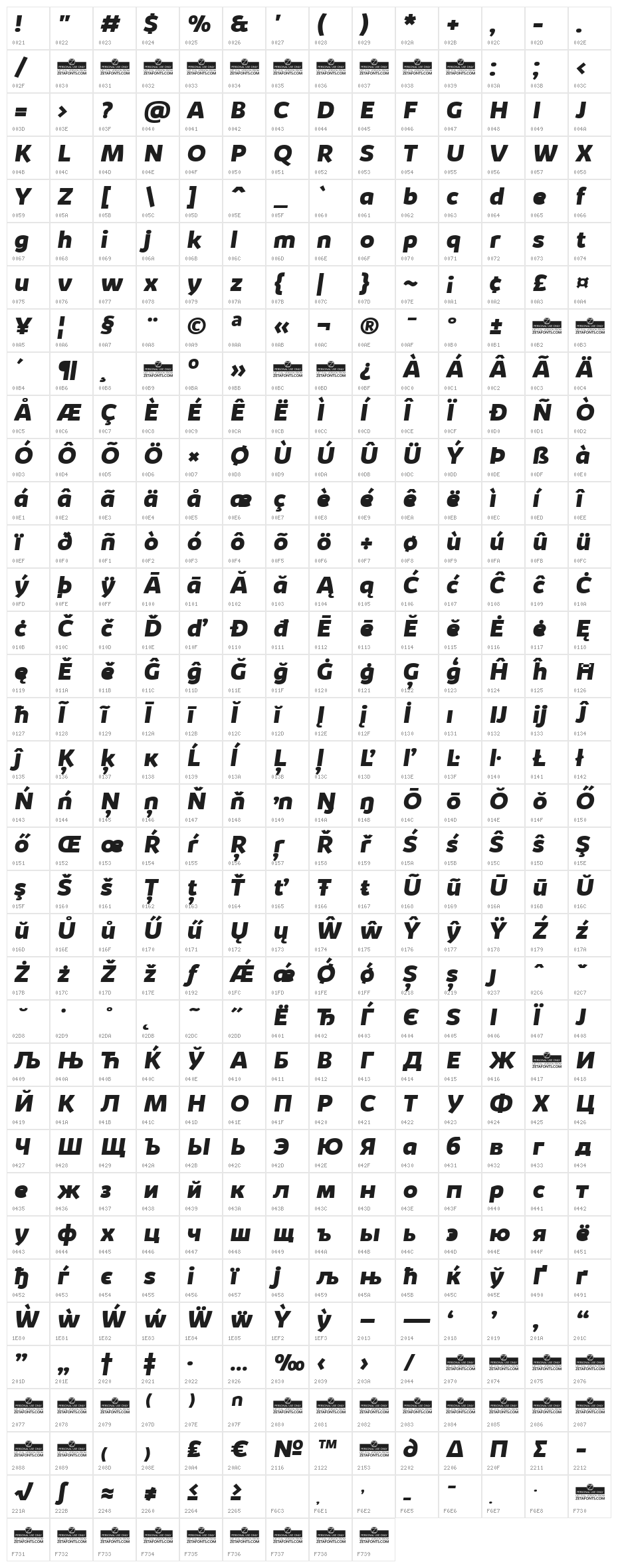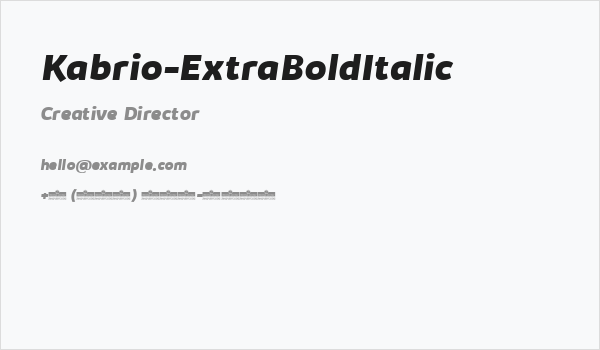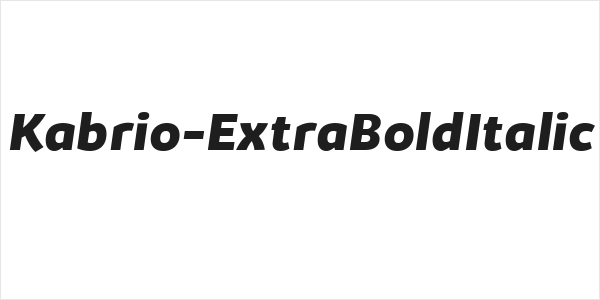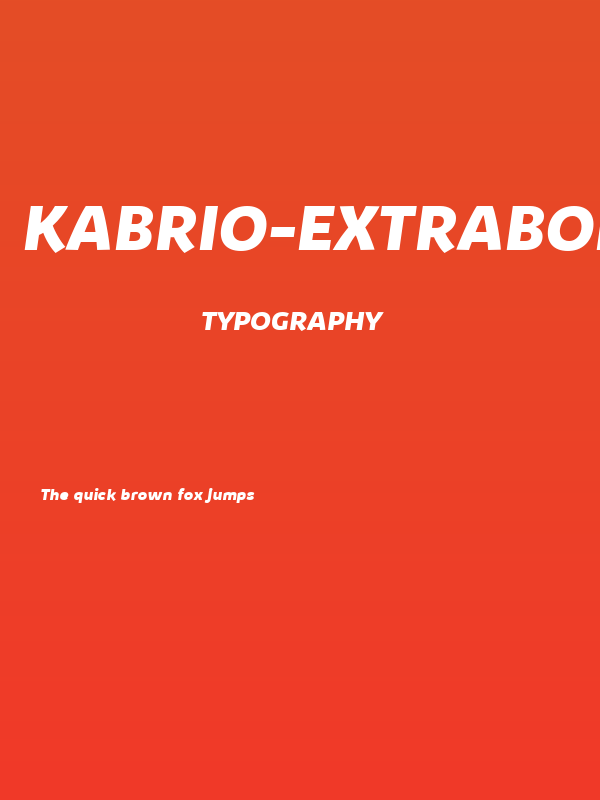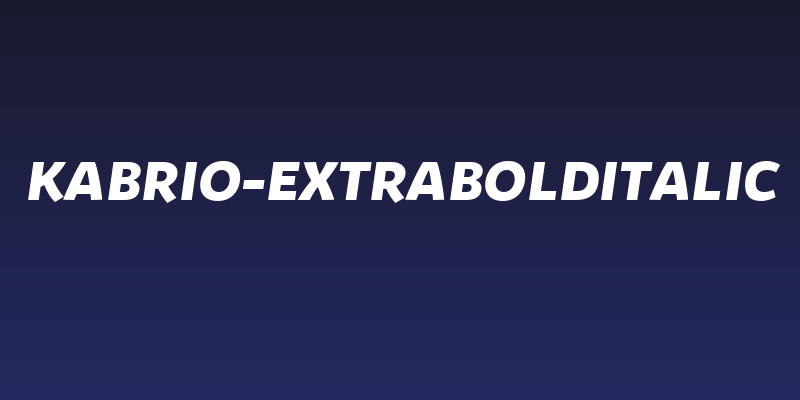
Kabrio-ExtraBoldItalic Font
Kabrio-ExtraBoldItalic Description
This typeface exudes a bold and dynamic presence, characterized by its extra-bold weight and italicized style. The letters are designed with a forward-leaning slant, adding a sense of movement and urgency. The strokes are thick and consistent, providing a strong visual impact. The uppercase and lowercase letters maintain a uniform width, ensuring readability and balance. The numerals and special characters are crafted with the same boldness, making them stand out effectively. This font is ideal for projects that require a strong and assertive typographic statement.
| Proposed Projects | Ideal for branding, advertising, headlines, and any design requiring a bold statement. |